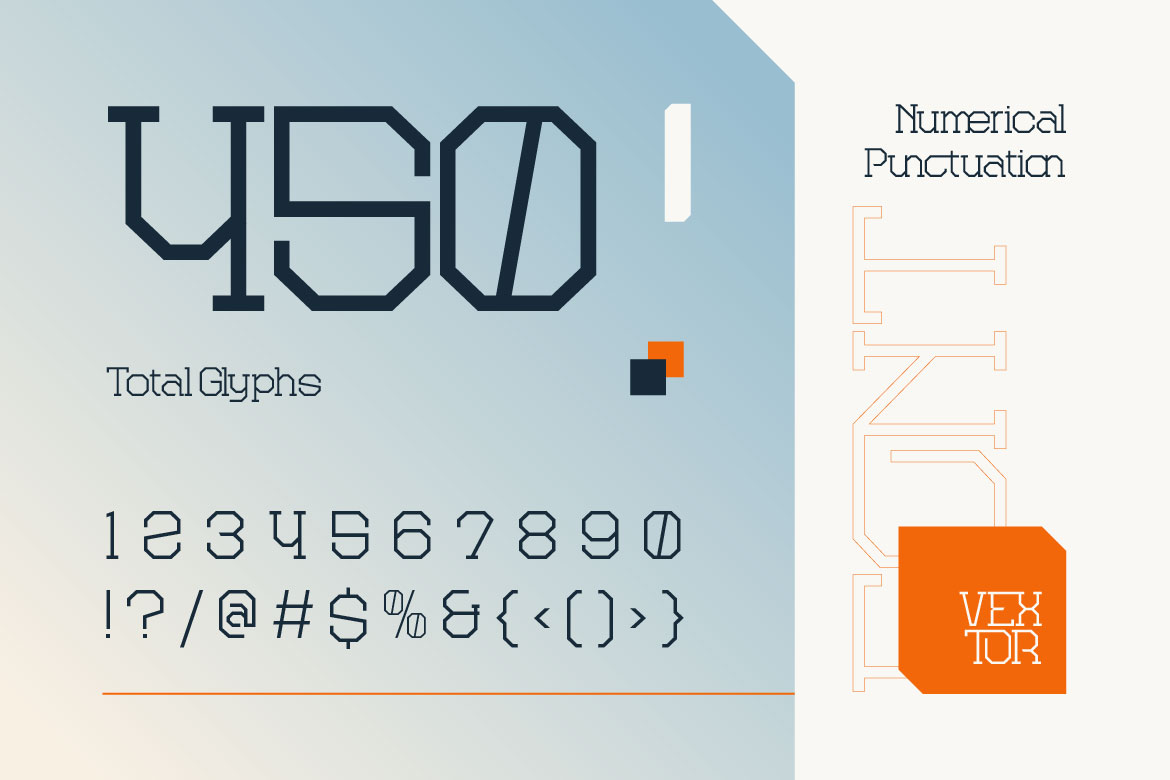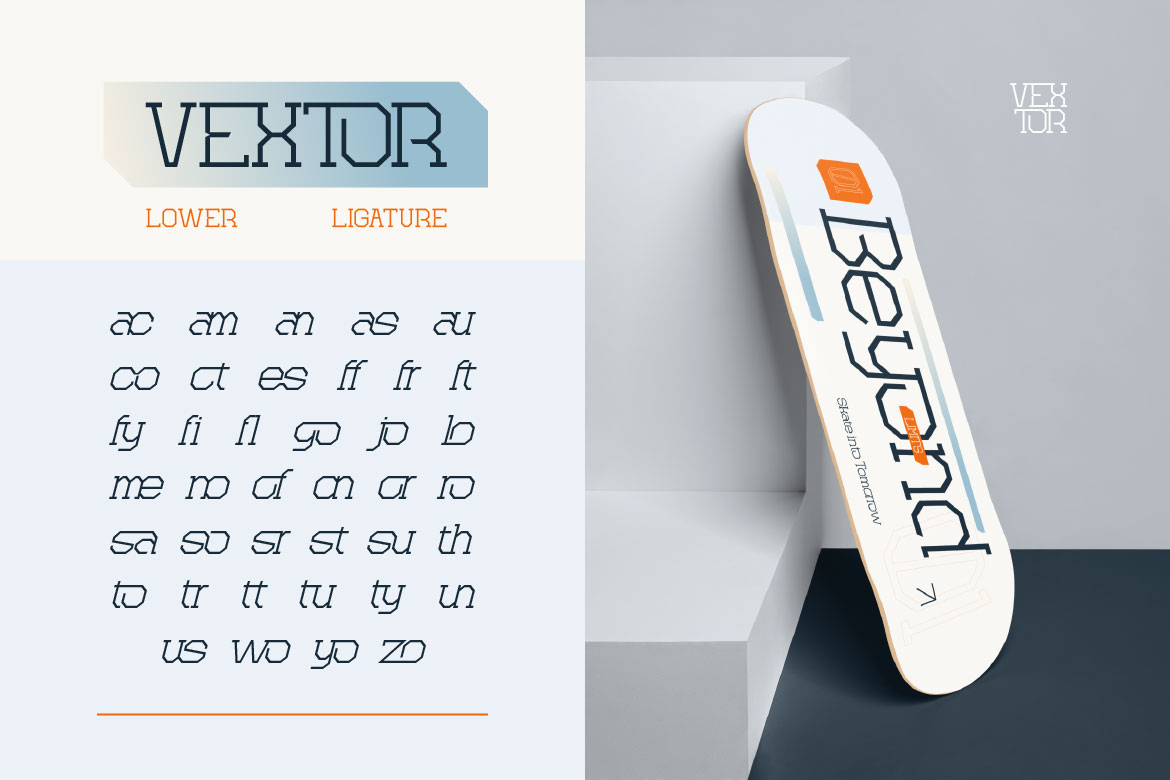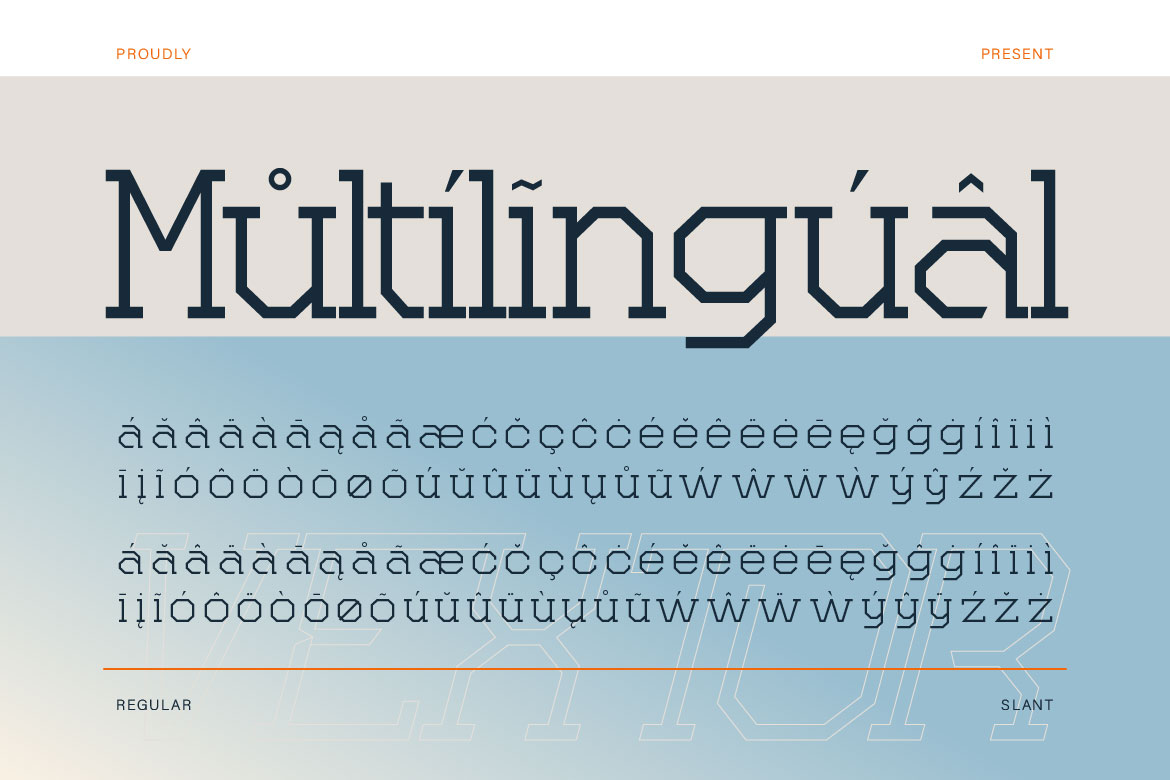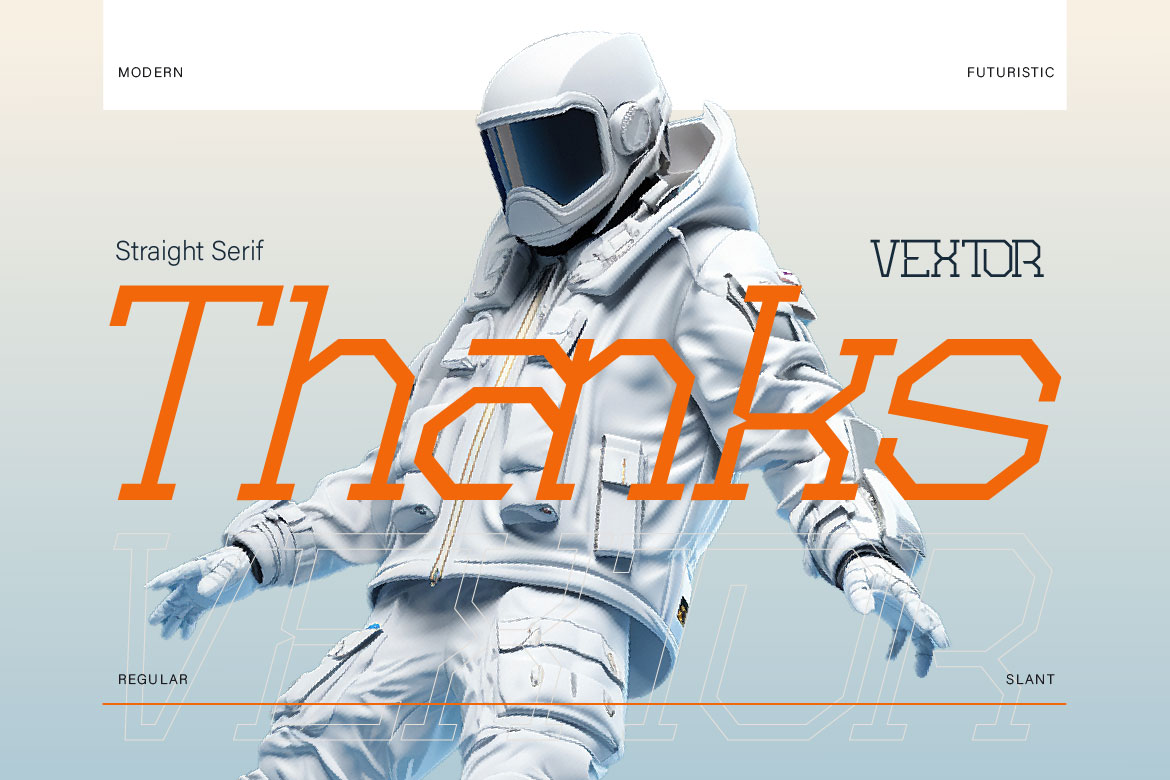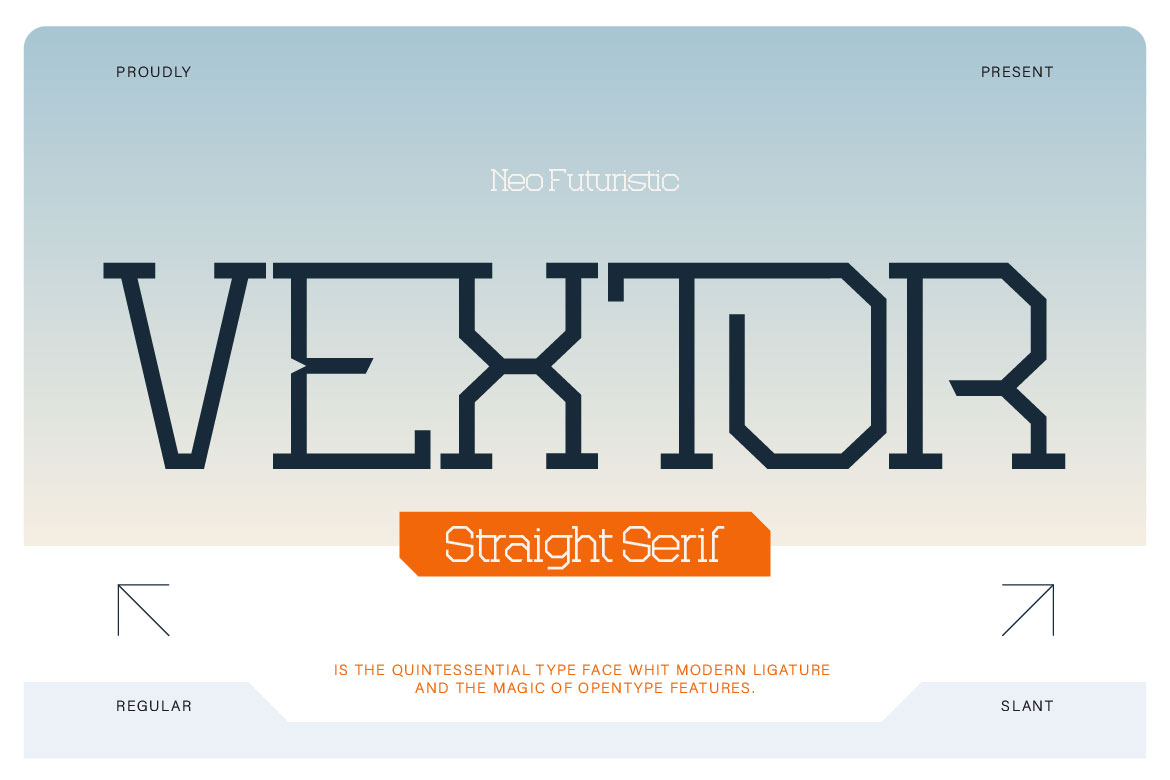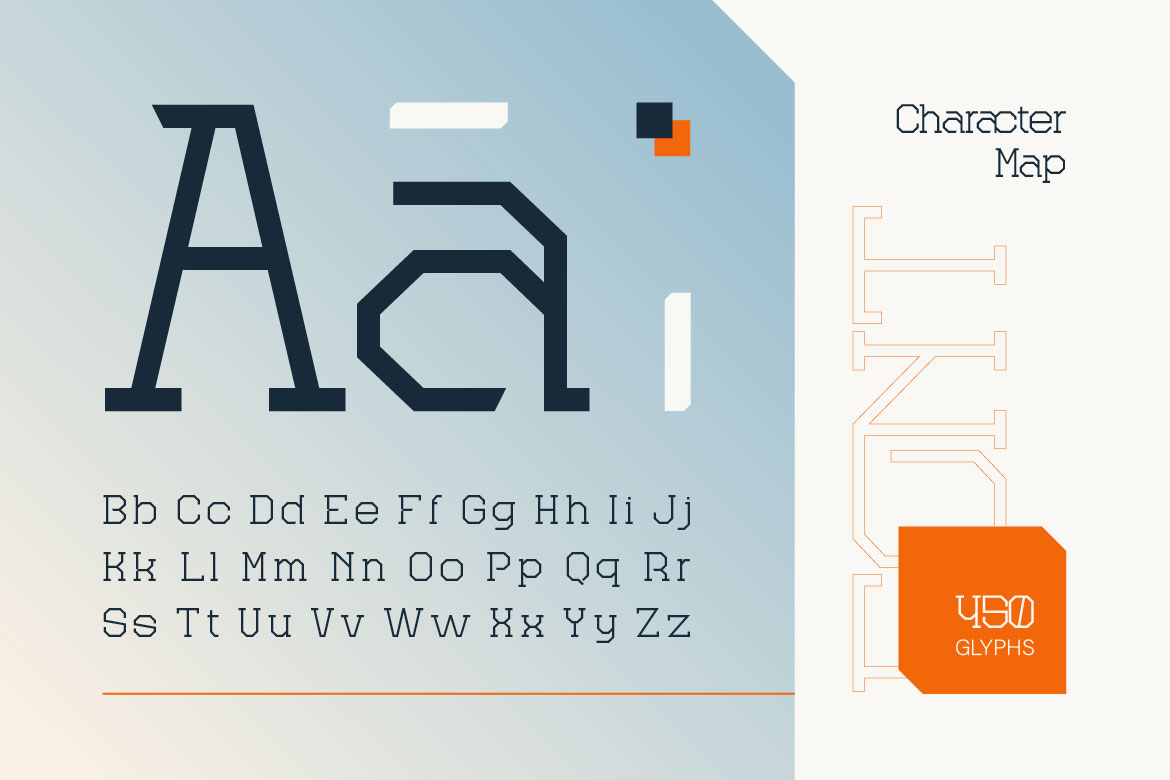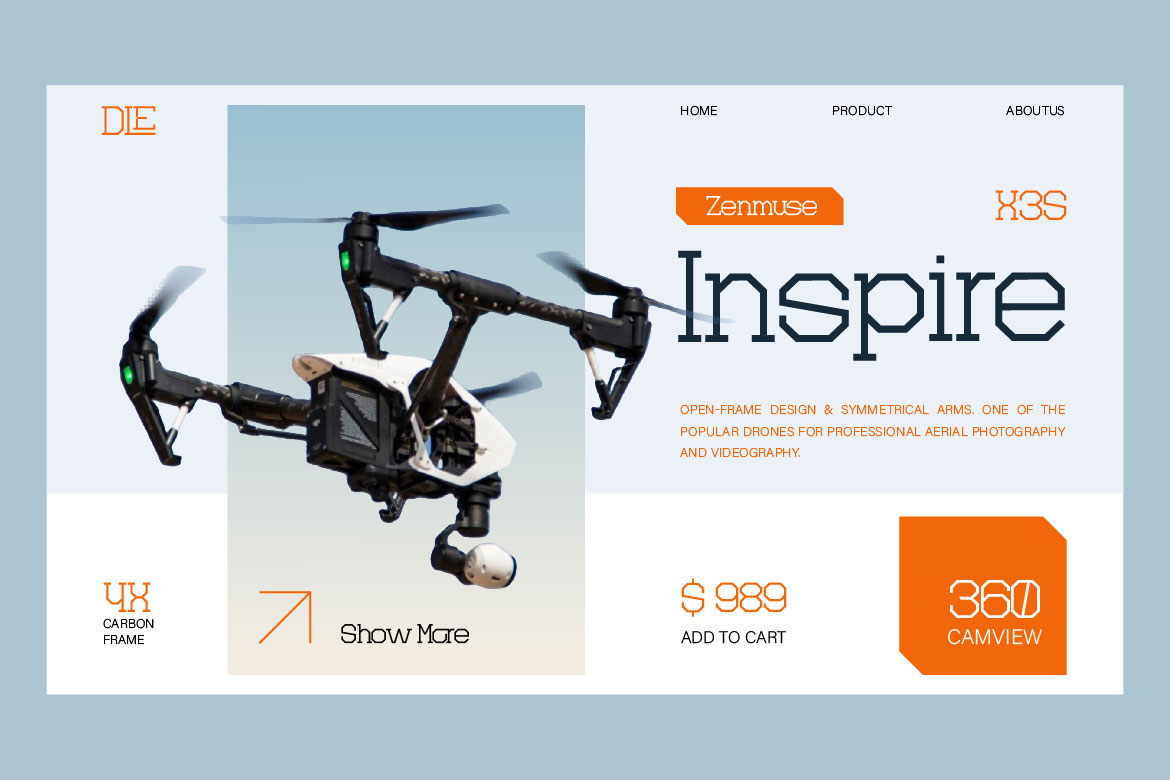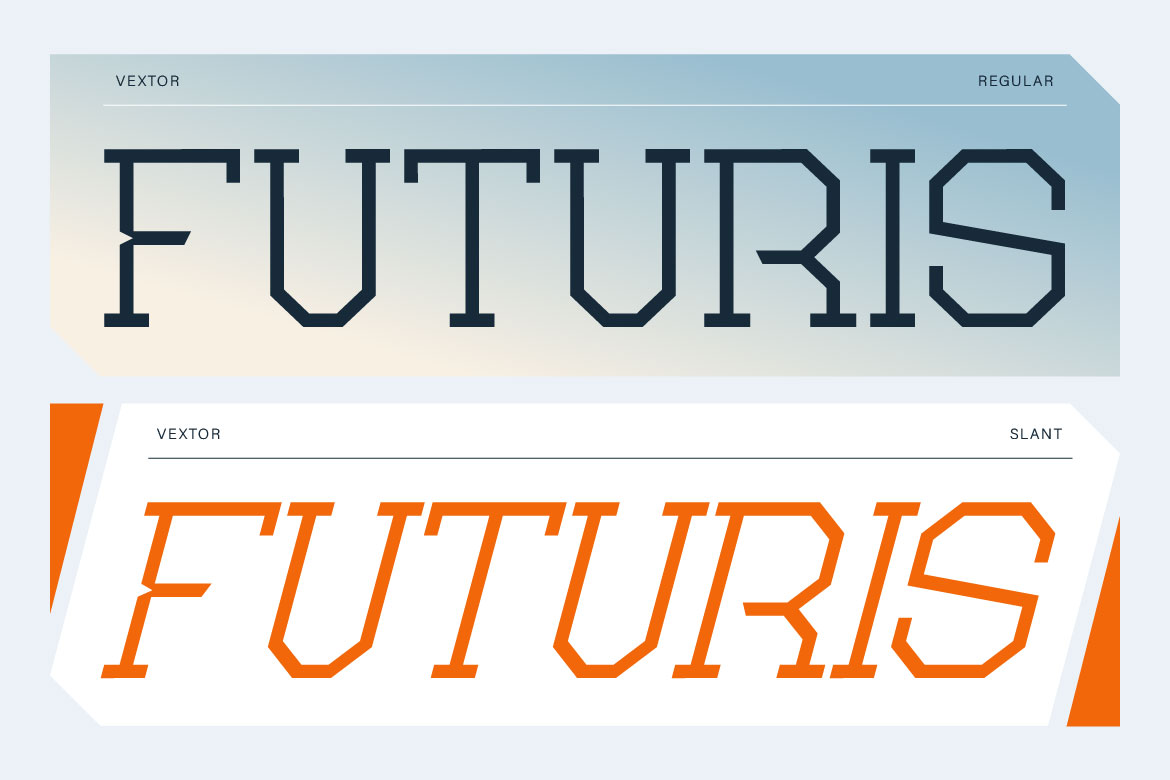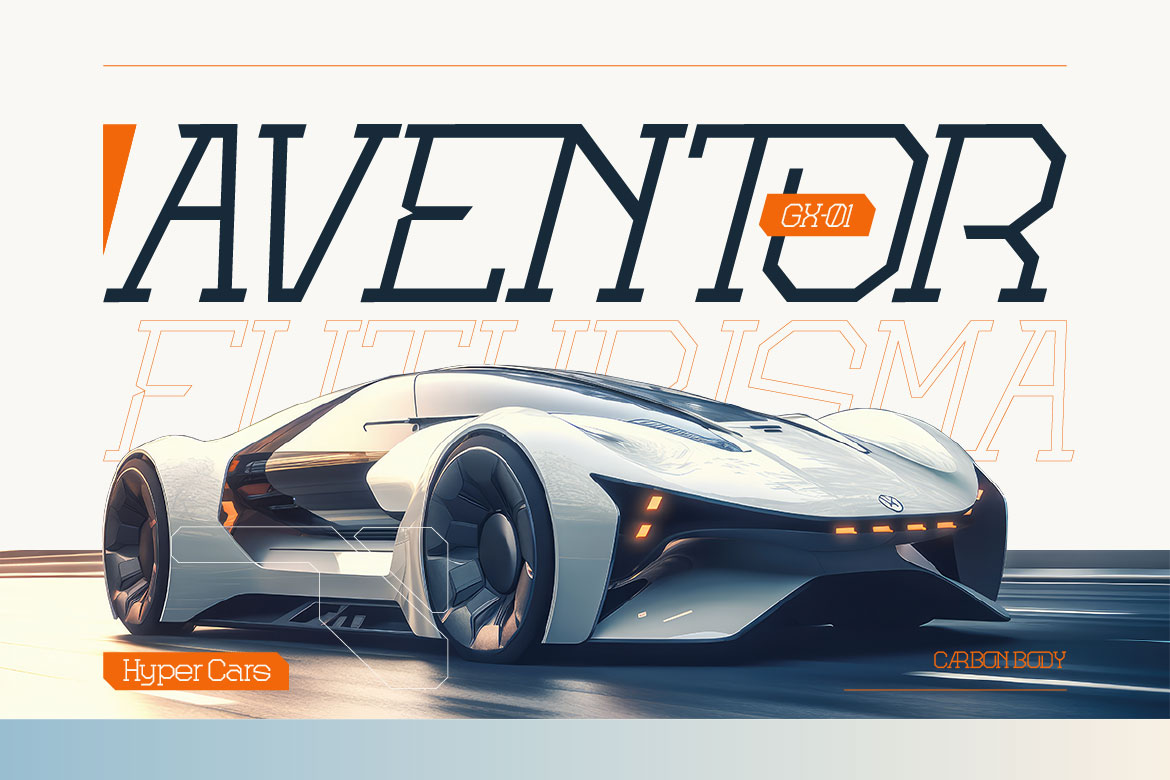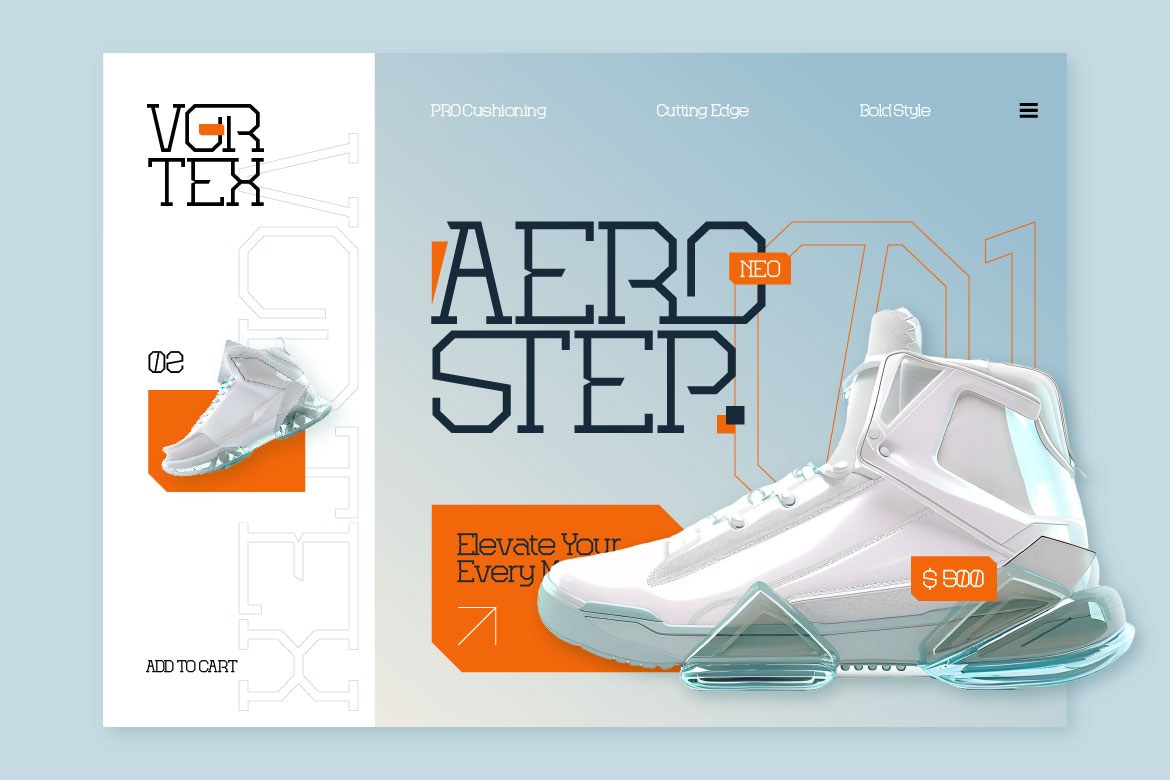
Vextor
Regular
Slant
Introducing, Vextor, a modern straight serif design with futuristic style. This font characterized by clean lines, geometric shapes, unique angle and sense of motion. Make it feeling of innovation and advance technology with minimalist design. Also have 2 style, regular and slant. Ideal for branding, web fonts, poster and any project that need sense of progress and forward thinking.
• A – Z set (Uppercase & Lowercase)
• Number
• Punctuation
• Ligatures
• Multilingual